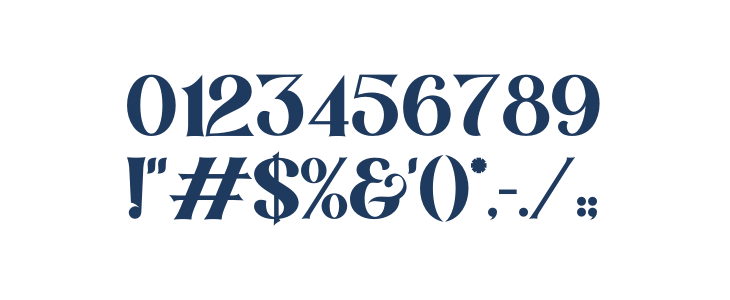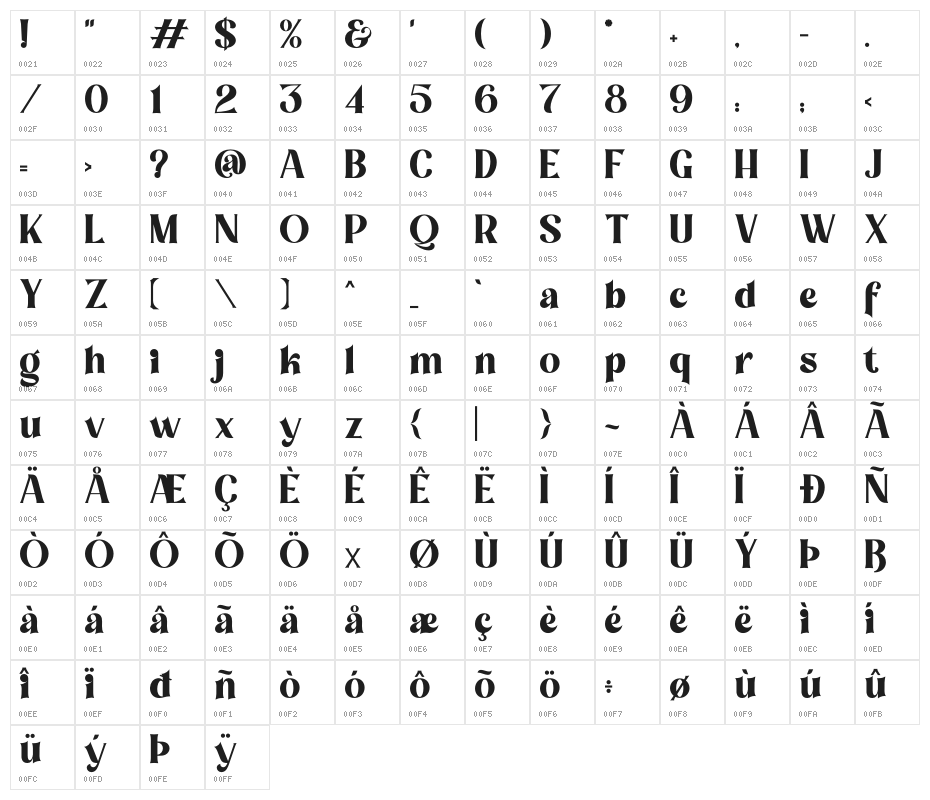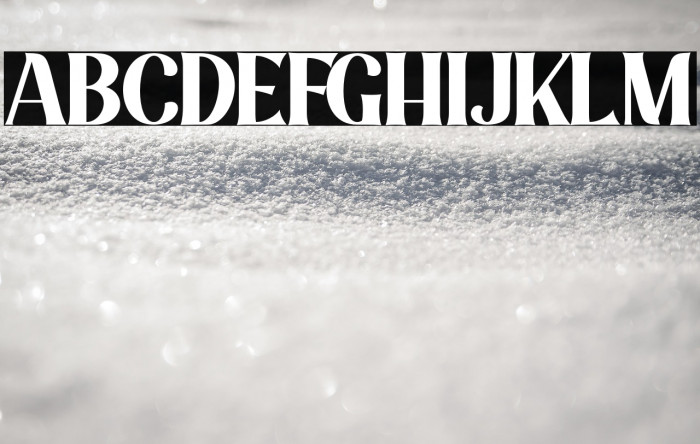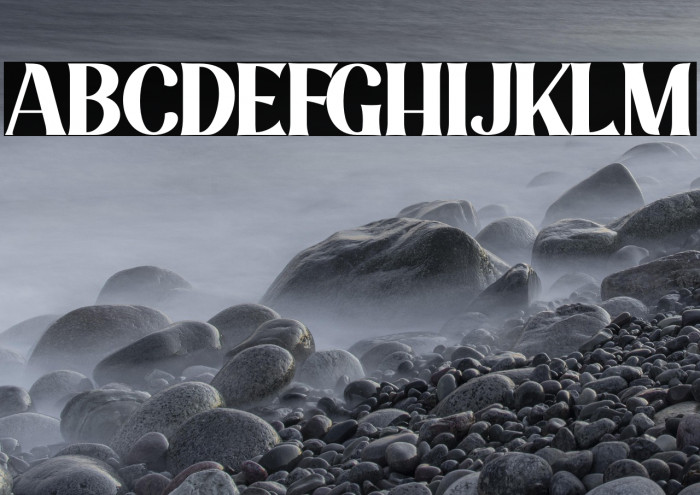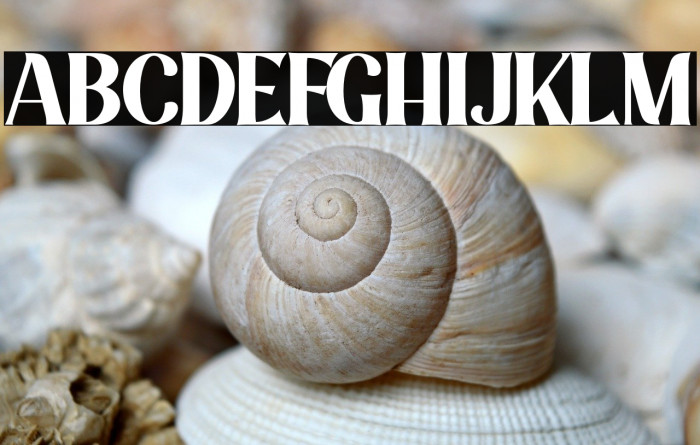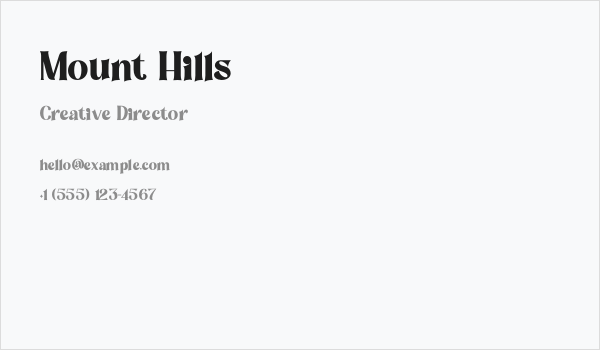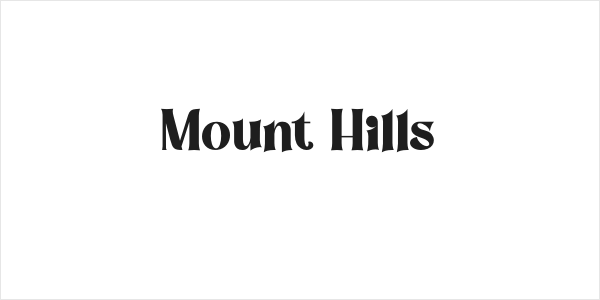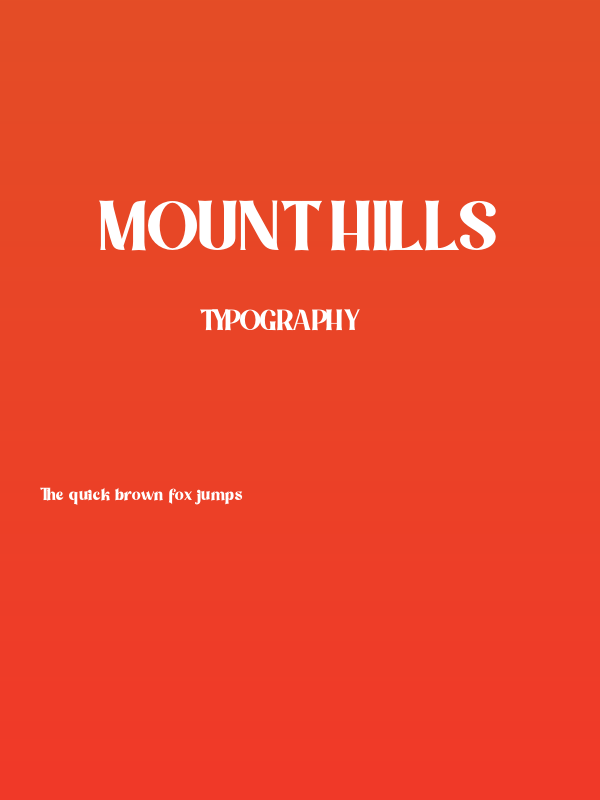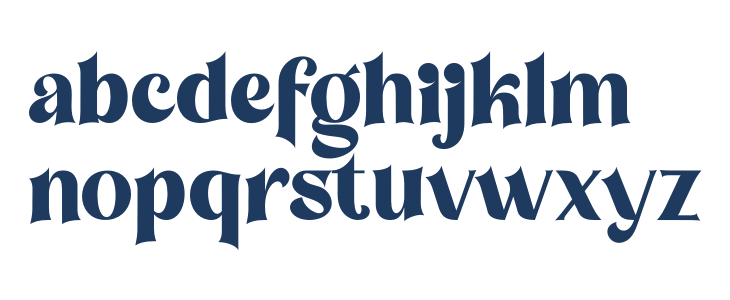
Mount Hills Font
Mount Hills Description
This font exhibits a bold and striking appearance with a distinctive flair. The characters are designed with a high contrast between thick and thin strokes, giving it a dramatic and eye-catching look. The uppercase letters feature sharp, angular serifs, while the lowercase letters maintain a consistent style with rounded edges and unique curves. The numerals are bold and easily distinguishable, complementing the overall aesthetic. Special characters are crafted with the same attention to detail, ensuring a cohesive look across all glyphs. This font is ideal for making a strong visual impact.